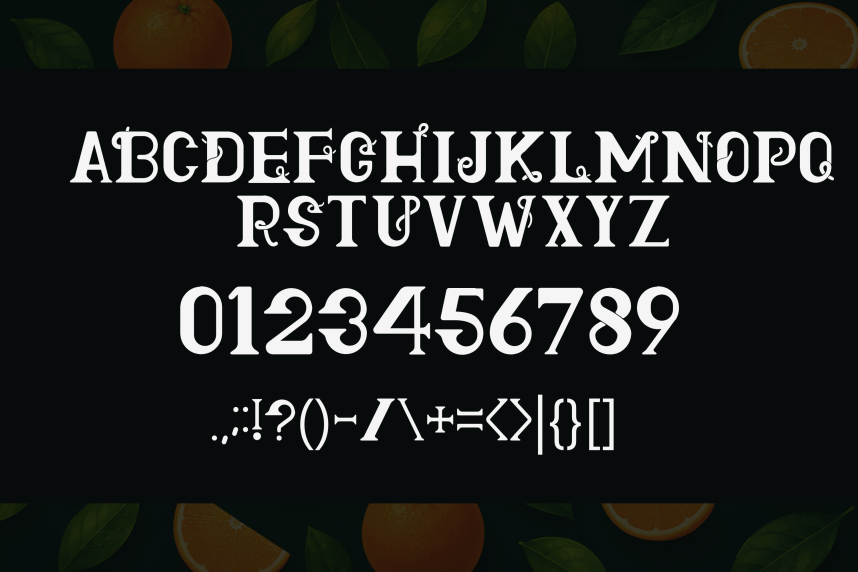
Flow Serif Font is an elegant serif font with flowing vine-like flourishes — natural and graceful, perfect for floral branding, book covers, and restaurant menu titles.